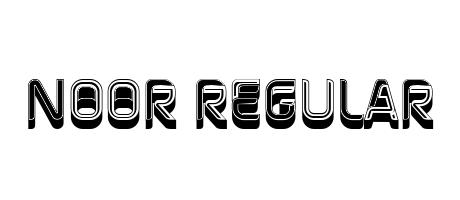
Noor
Noor Regular boasts a bold, geometric sans-serif design. Its clean lines are given a futuristic edge by a subtle, multi-layered shadow effect, creating a sense of depth and three-dimensionality. The letters are uniformly weighted, resulting in a strong, consistent visual impact. It's a font that projects both modern simplicity and subtle technological sophistication.